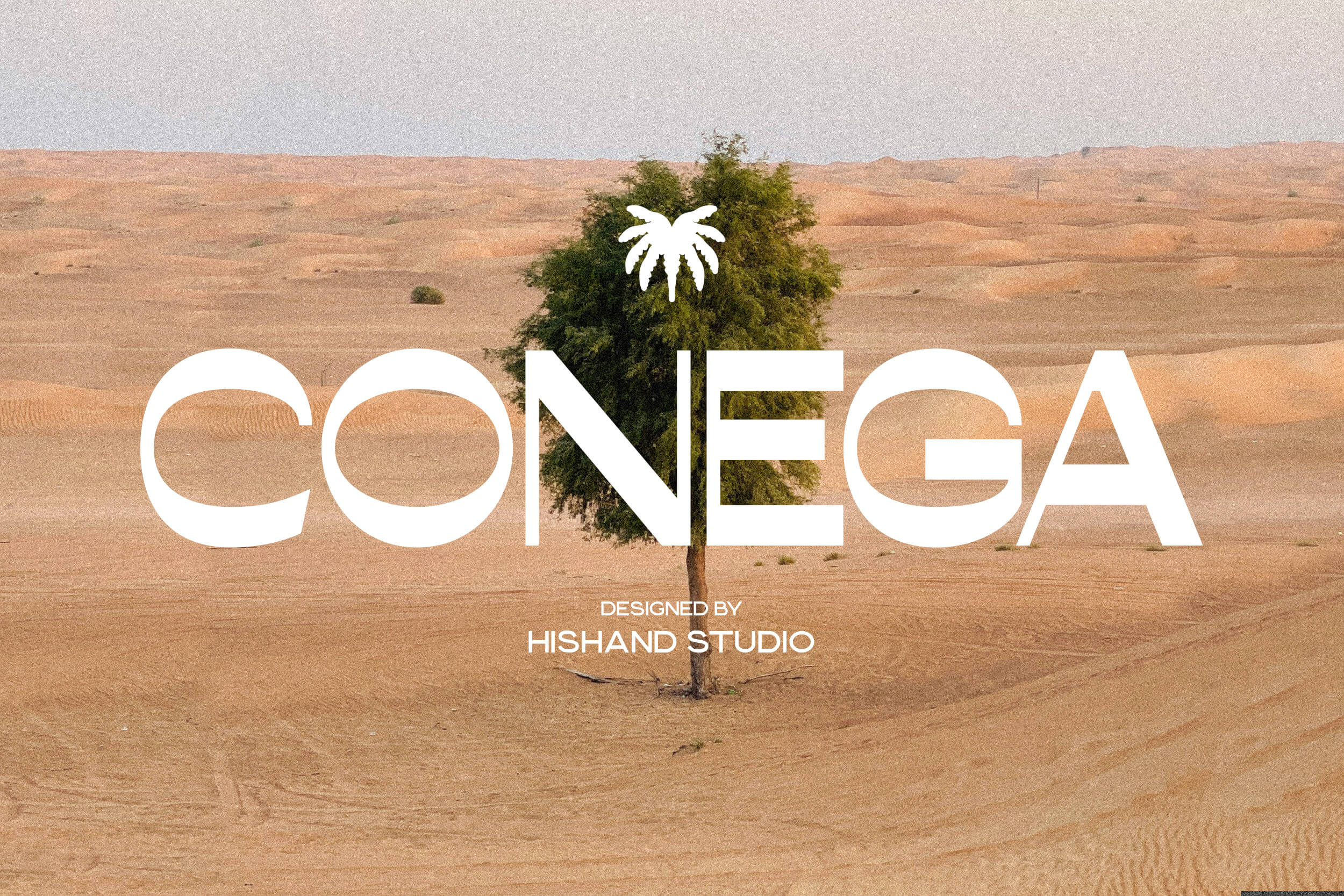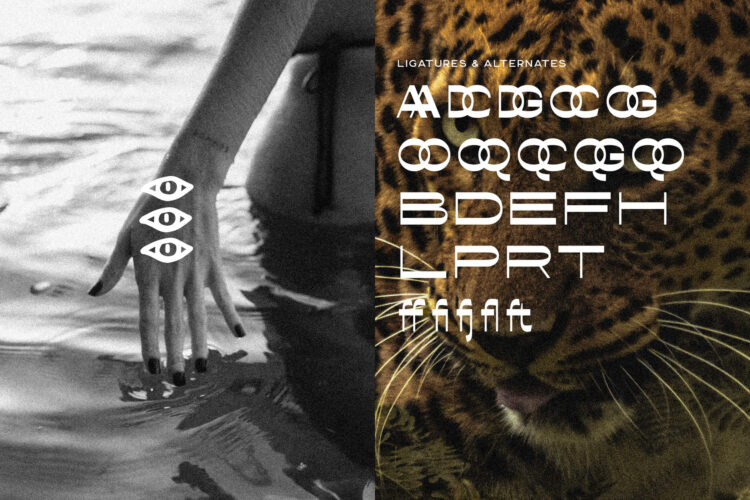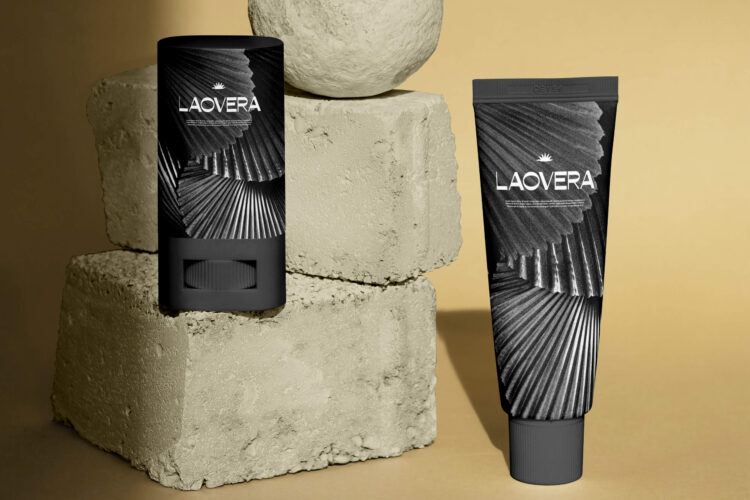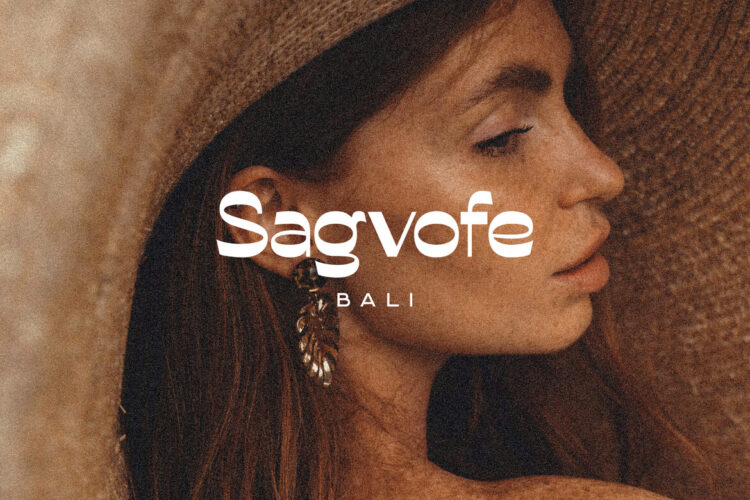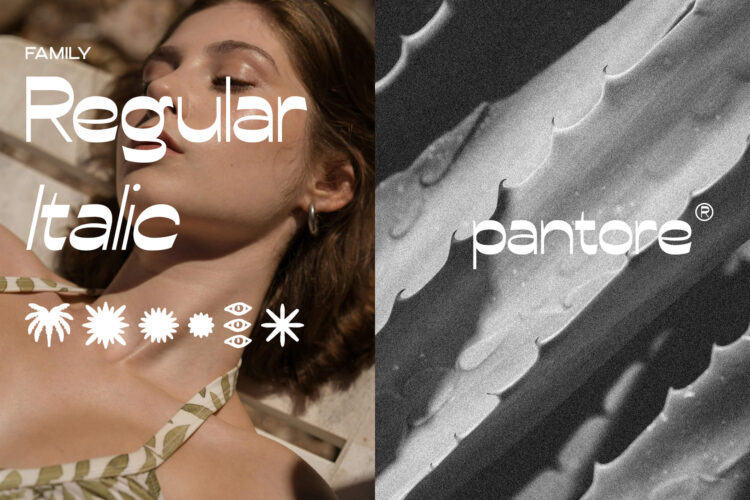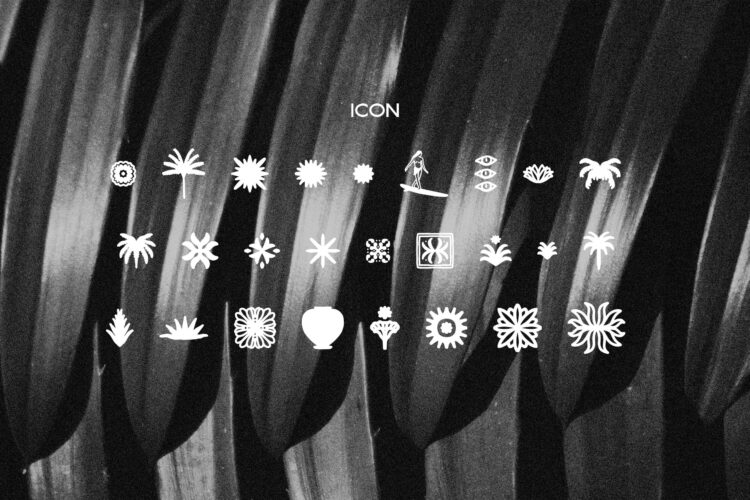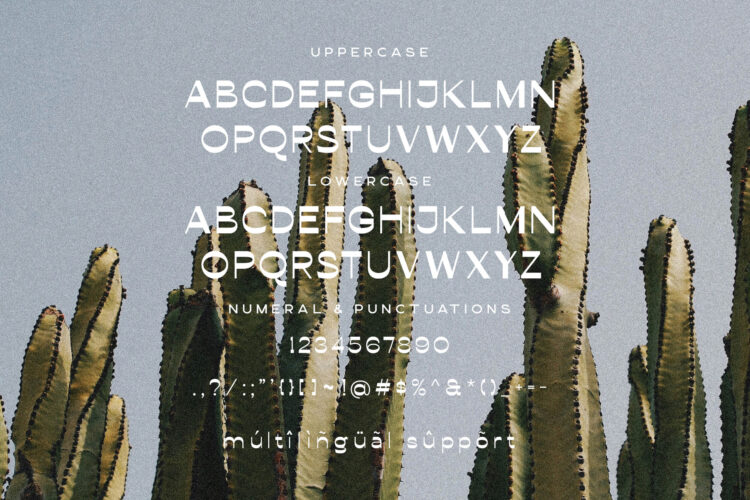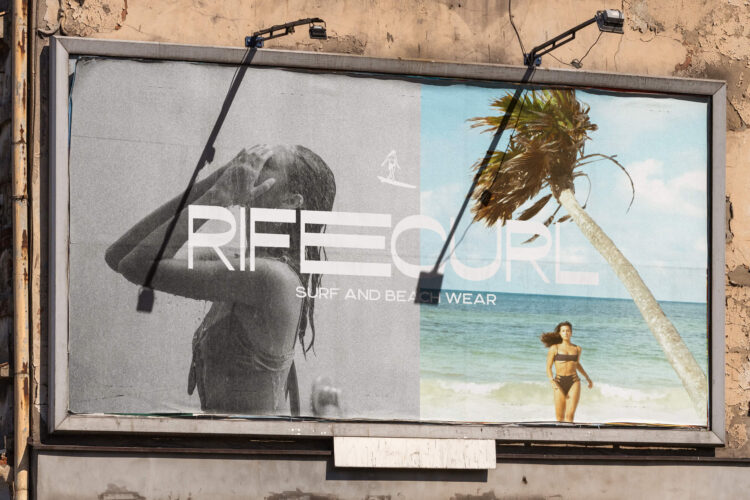
Conega Font
Conega
Conega Italic
Conega Icon
Conega is a modern sans serif display font crafted to deliver a clean, aesthetic, and highly contemporary feel to any visual project. Designed with a focus on clarity and visual harmony, Conega brings together refined geometry and smooth, balanced proportions that give every letter an elevated sense of intention. The font’s structure blends simplicity with sophistication, creating a confident and elegant presence that instantly enhances any design. Whether used in a bold headline or a subtle brand element, Conega maintains its polished appearance and contributes to a cohesive visual identity.
At the core of Conega’s appeal is its minimalist design approach. Each character is shaped with precision, featuring sharp edges, subtle curves, and open letterforms that allow the font to breathe. This combination not only ensures excellent readability but also gives the typeface a distinctive personality that sets it apart from typical sans serif fonts. Conega is designed to capture attention without overpowering the message, making it ideal for designers who value clarity, structure, and modernity.
Its versatility is one of its strongest qualities. Conega display font performs beautifully across a wide range of applications, from logos and branding to editorial layouts, product packaging, posters, and digital interfaces. The font’s clean lines and optimized spacing make it suitable for both large display sizes and smaller text settings, maintaining its elegance and precision in every context. Brands looking to convey a stylish, fresh, and professional identity will find Conega especially effective, as it communicates sophistication with a subtle contemporary edge.
Conega’s timeless aesthetic lends itself well to luxury branding, minimalistic visual systems, and modern marketing materials. Its bold yet restrained character helps create memorable designs that feel intentional, refined, and visually striking. Whether you are developing a high-end product design, building a sleek startup brand, or crafting a clean editorial theme, Conega adds a level of polish and cohesion that elevates the entire composition.
In a design landscape where clarity and aesthetic consistency are more important than ever, Conega offers a reliable and beautiful typographic solution. Its thoughtful construction, versatility, and modern appeal make it a powerful tool for designers who want to create impactful and visually expressive work.
Complete with
• ligatures
• alternates
• regular
• italic
• icon
• kerning
• multilingual support